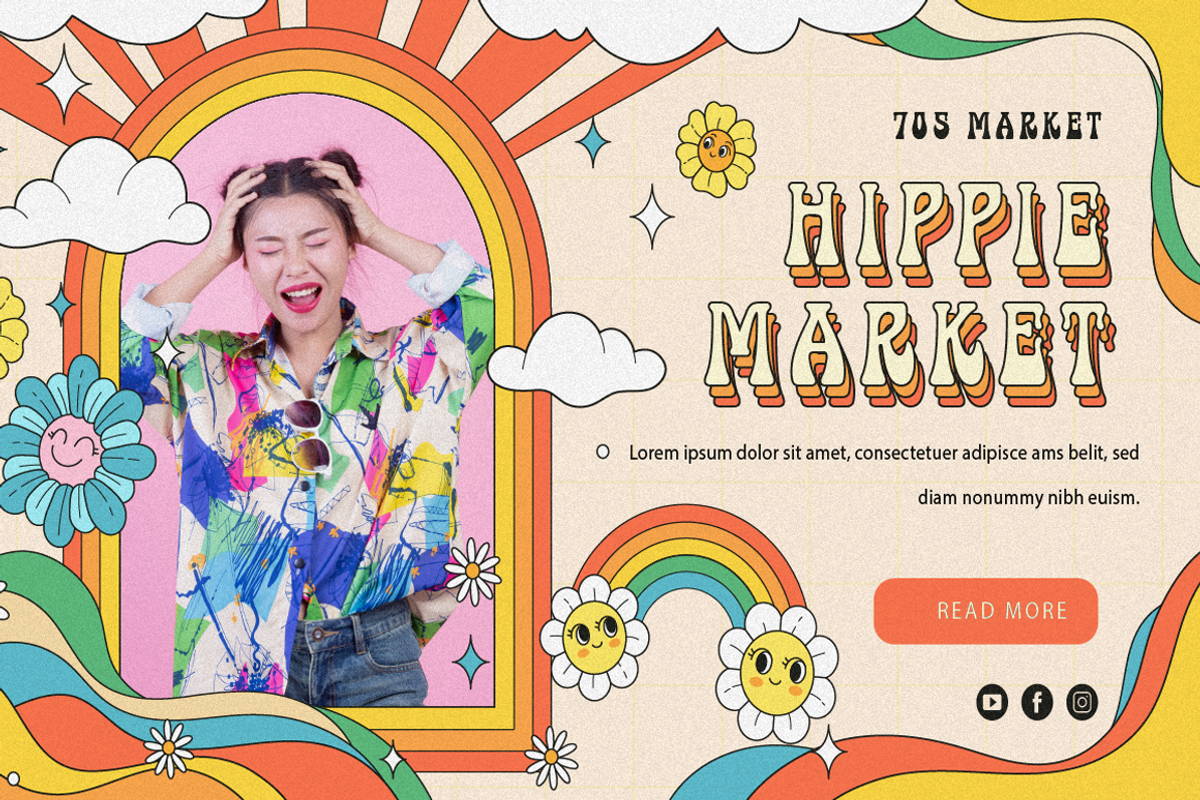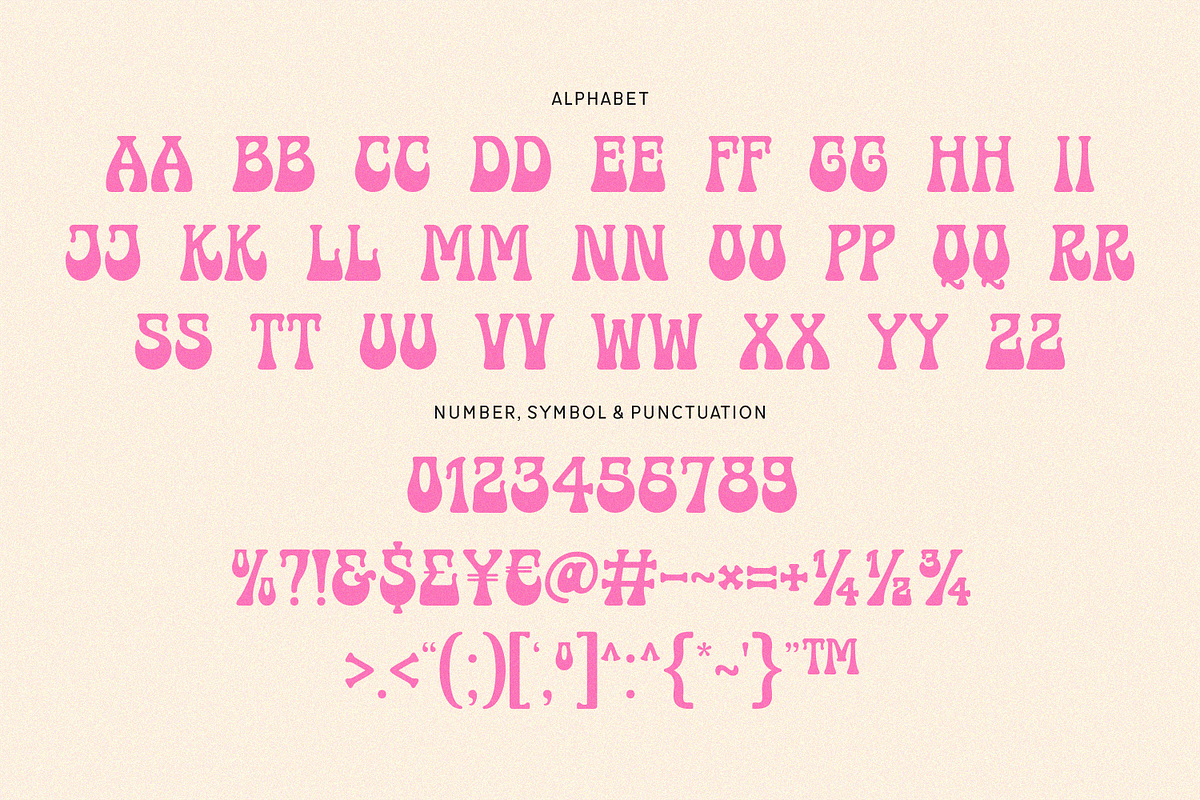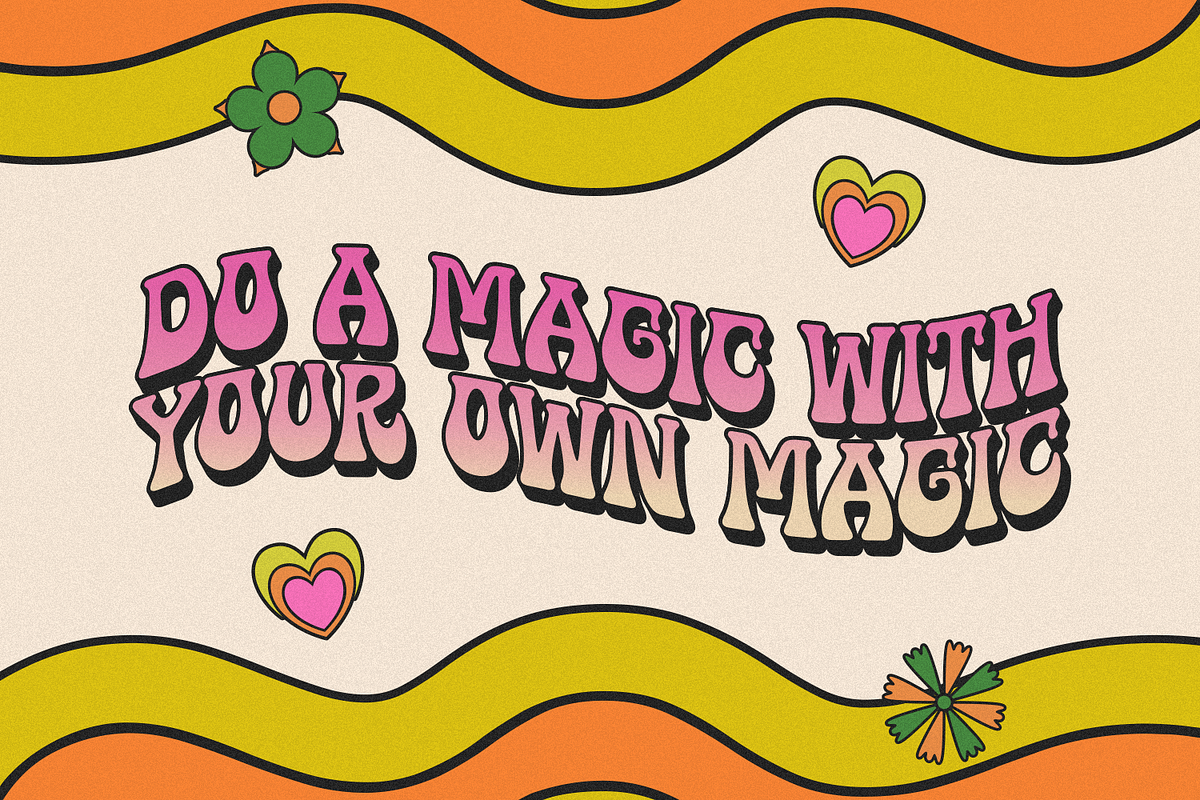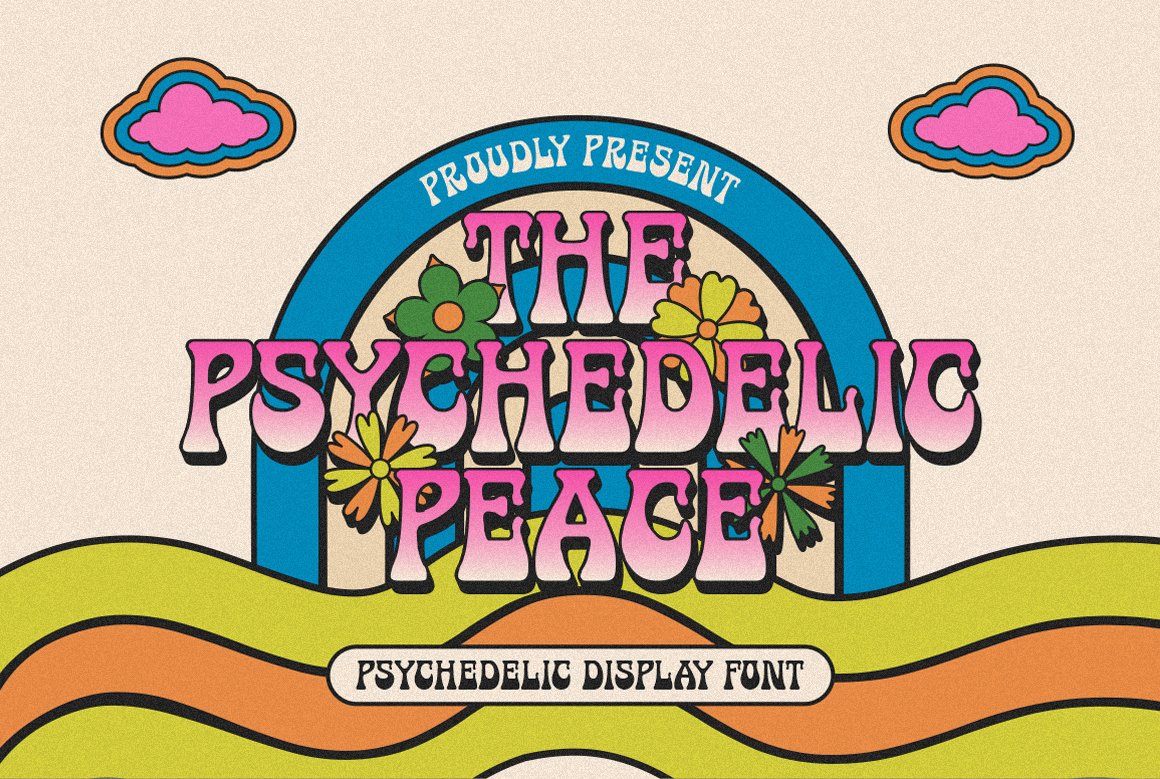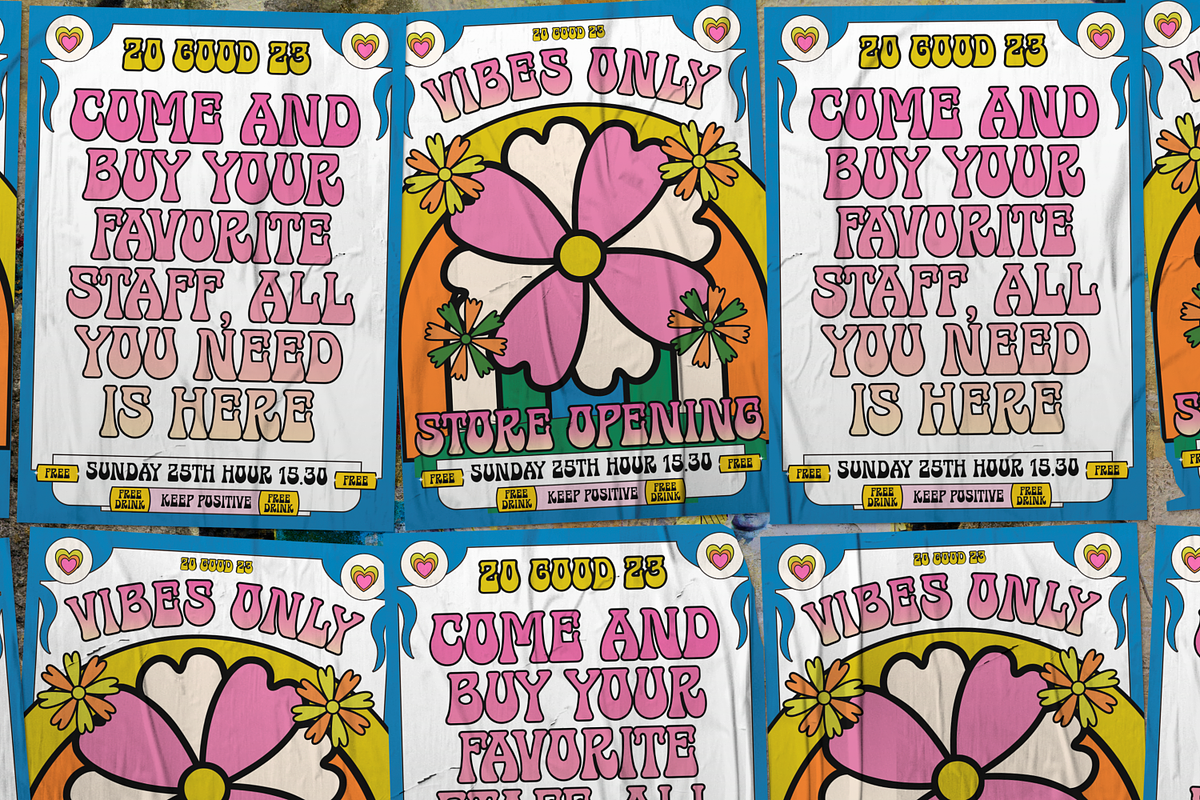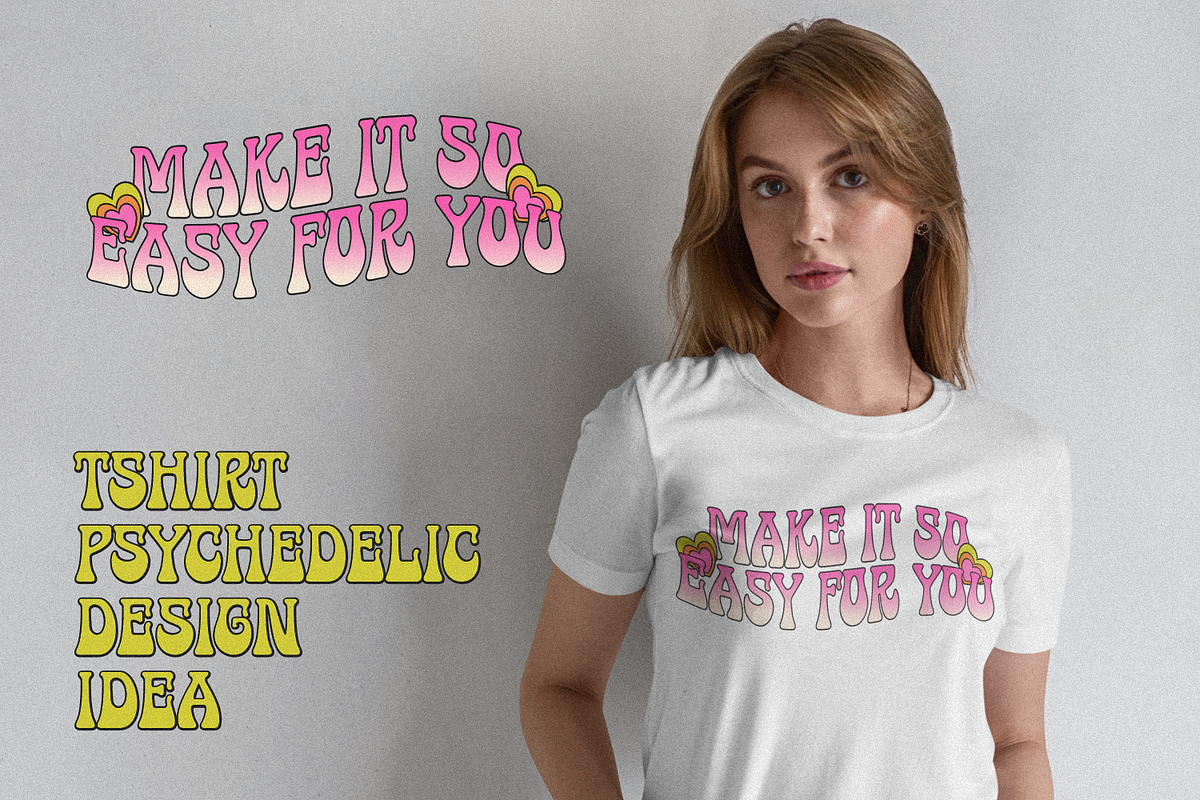
The Psychedelic Peace - Groovy Font
🌼 The Psychedelic Peace – Groovy Display Font 🌼
Step back into the vibrant vibes of the 60s and 70s with The Psychedelic Peace – a bold, retro-inspired display font that radiates love, peace, and good vibes! This eye-catching font is perfect for designers and creators who want to channel the groovy spirit of the psychedelic era.
With its bold curves, bubbly letterforms, and playful shadows, The Psychedelic Peace is ideal for:
- Retro posters and album covers
- Vintage-themed branding
- Festival flyers and merchandise
- T-shirt designs, stickers, and more!
- Perfect for headlines, logos, and decorative text
- All uppercase characters
- Supports basic punctuation and multilingual characters
Let your creativity flow and bring a splash of flower power to your designs with The Psychedelic Peace font. ✌️